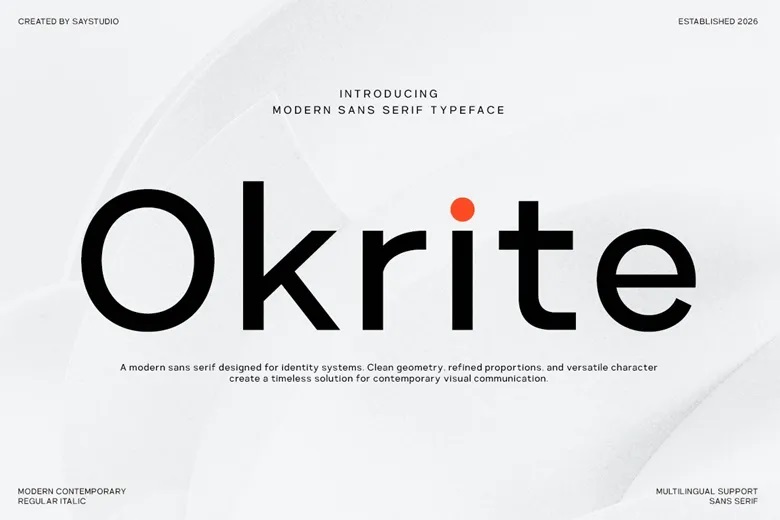
Okrite Font
Okrite is a modern geometric sans-serif font designed for clean branding, editorial layouts, tech products, and fresh visual identities. Its balanced proportions, smooth curves, and strong readability give digital and print projects a polished look.
Okrite offers several weights and matching italics, so you can use it for bold headlines or refined body text. Its straightforward design works well for logos, branding, UI/UX, magazines, websites, presentations, packaging, ads, and other creative work.
If you’re working on a startup, editorial design, tech branding, an architecture portfolio, a fashion campaign, or a business presentation, Okrite offers a timeless and versatile typeface with precision, clarity, and a modern touch.
Okrite Sans Serif Font